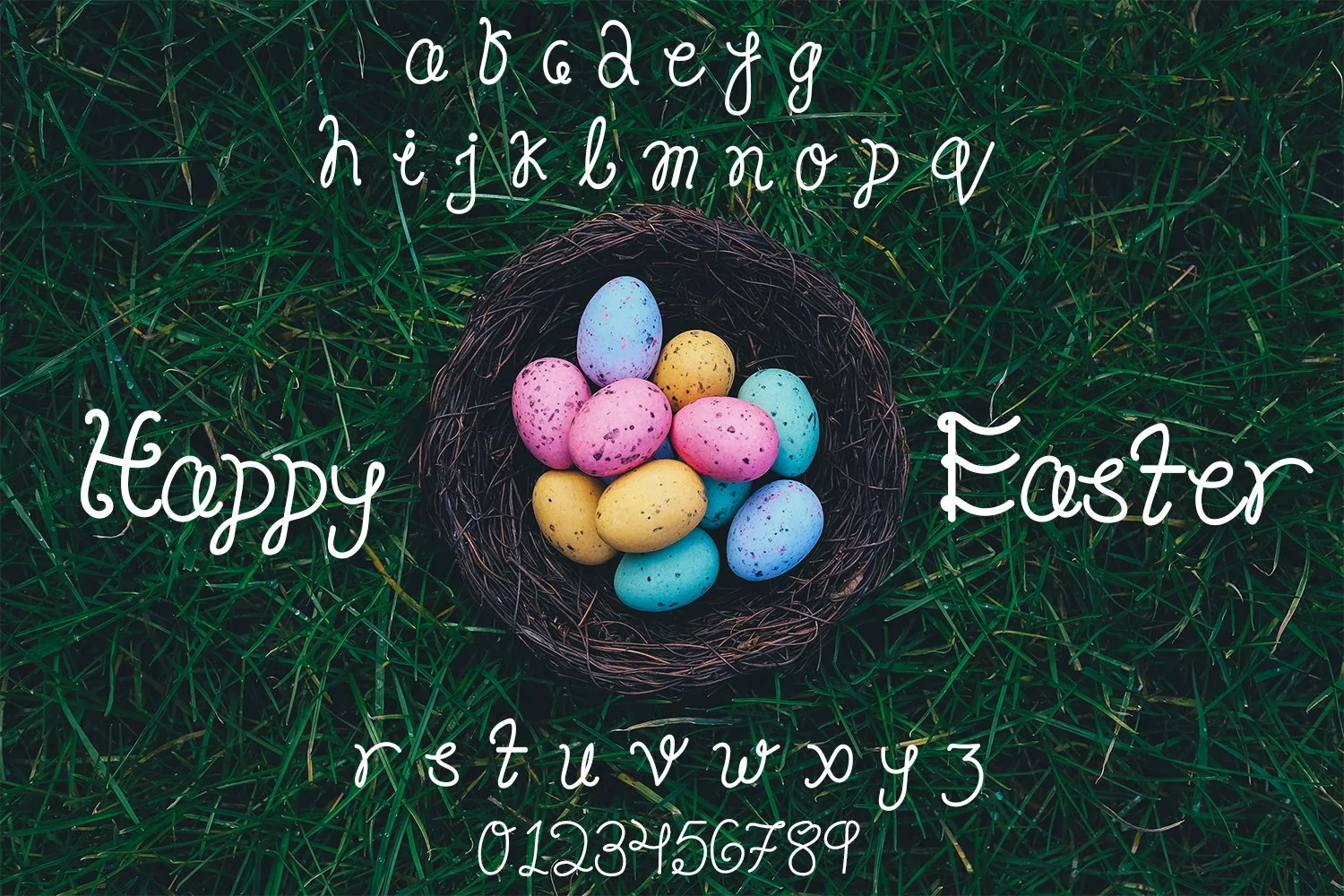
Happy Easter Font example image 1
Before easter I have to add something really special for that day so, Its time for easter font. A happy day you can celebrate with this special font and can be used anywhere you like!